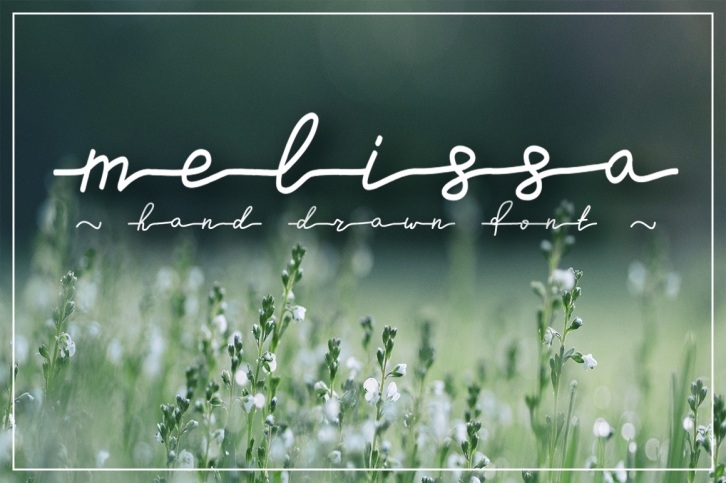
Melissa is a great font that was designed by Yashroom. Imagine the amount of combinations you can create using this font! The archive is 21.64 MB and it was released on June 23, 2017. Melissa looks beautiful on wedding invitations, greeting cards, logos, posters, labels, t-shirt designs, logos, business cards and is perfect for use in ink or watercolor works, fashion, magazines, packaging and food menus, children's books and more!